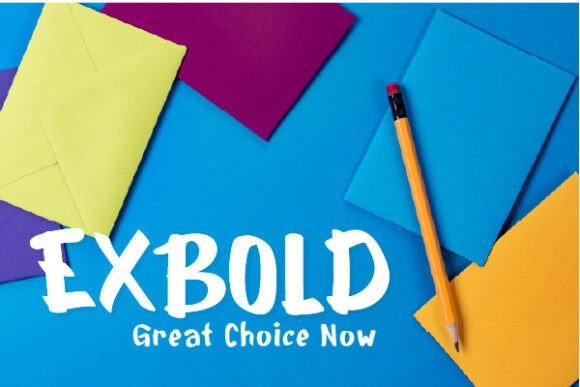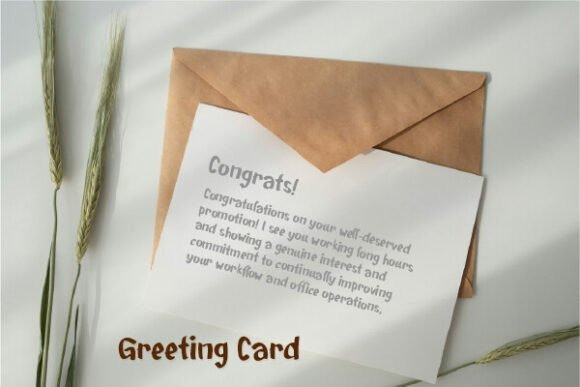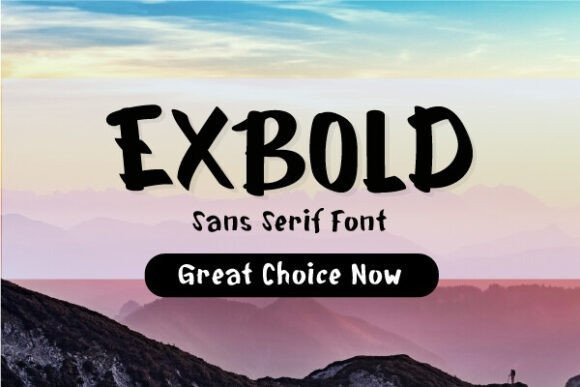
Exbold Font
Exbold Font is designed in an enjoy handwritten sans serif font style. Let’s try it to your projects, such as back to school, wedding, party decoration, invitations, posters, blogs, social media posts or anything that needs a relax touch. Add it now to your fonts library, and it will bring any of your DIY projects to life.